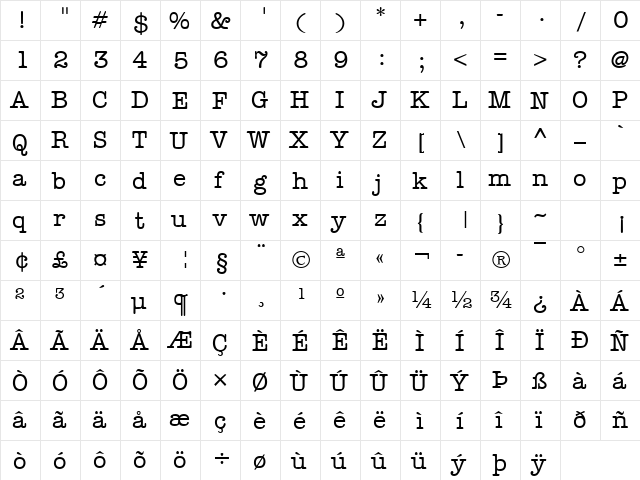
Editor Regular
Design Context for Editor Typeface
Editor takes a measured approach to typography — its balanced proportions and neutral character make it a reliable workhorse for both digital and print work.